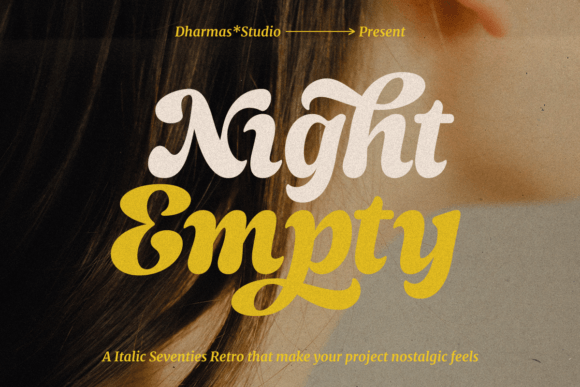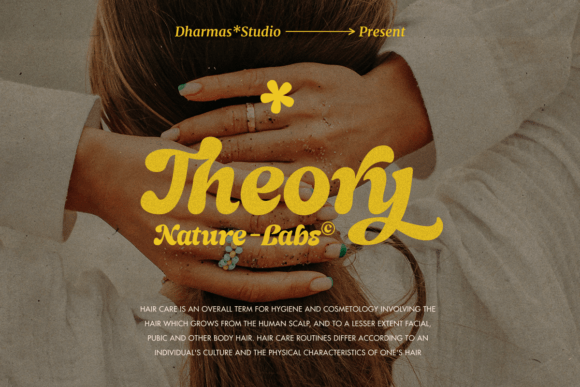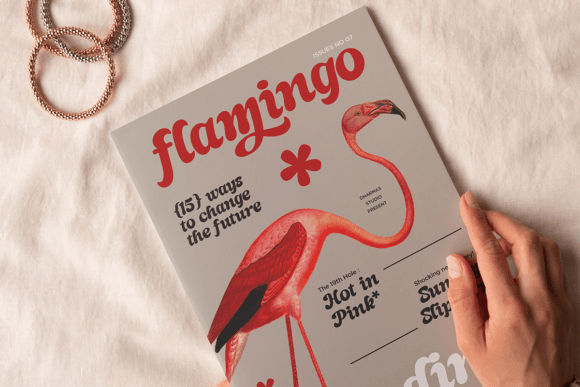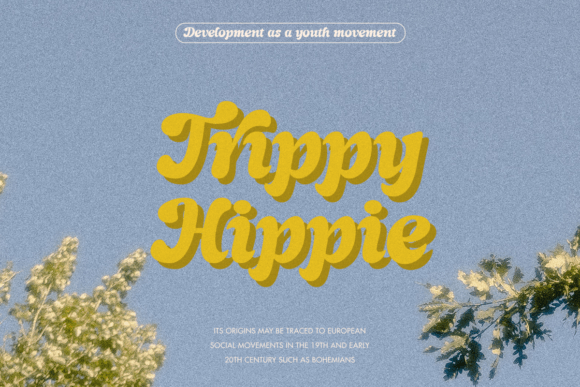
Night Empty Font: Groovy Retro Serif for Vintage Branding & Design
About the Night Empty Font
Let us introduce you to Night Empty Font, where timeless design meets modern craftsmanship. Night Empty feels playfully nostalgic and delivers an incredible vintage aesthetic. Use this serif font to add that special retro touch to any design idea you can think of!
Night Empty’s playful vintage aesthetic makes it ideal for headlines, logos, short-form text on posters or packaging, and projects requiring a retro feel. Its charming character, however, doesn’t translate well to body text or UI elements; the unique letterforms can hinder readability in extended passages.
This font pairs well with clean sans-serif fonts like Montserrat or Open Sans for a balanced contrast, offering a modern edge to its vintage charm. Alternatively, a playful script like Pacifico can enhance its nostalgic feel for projects needing a whimsical touch. Avoid pairing it with other heavily ornamented or decorative fonts to prevent visual clutter.
Night Empty projects a friendly, nostalgic personality, best suited for brands emphasizing heritage, vintage aesthetics, or a playful, approachable image. Consider it for food packaging, retro-themed apparel, or event branding.
Night Empty Font Usage Examples
Night Empty Font Example